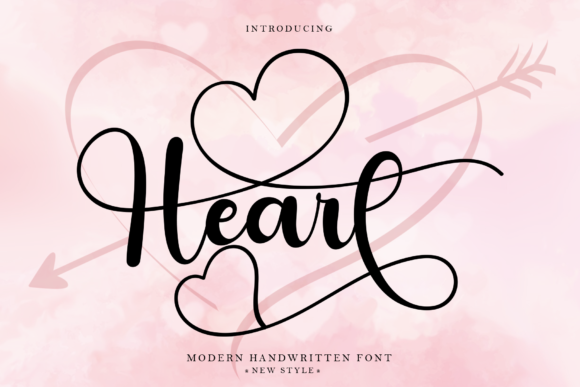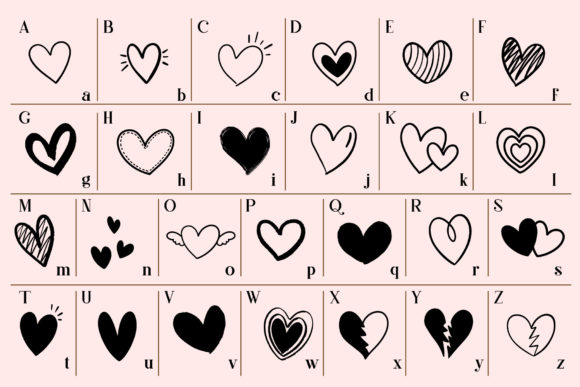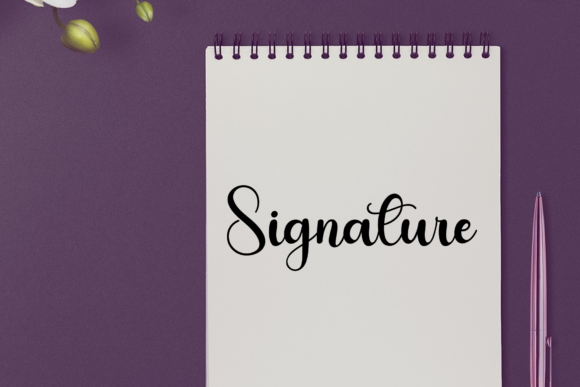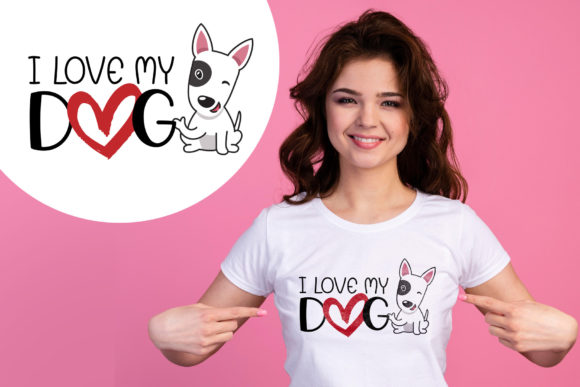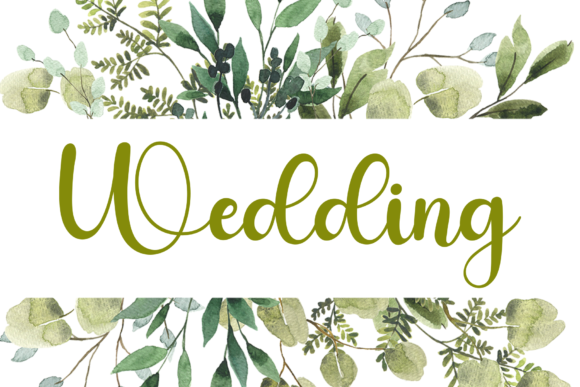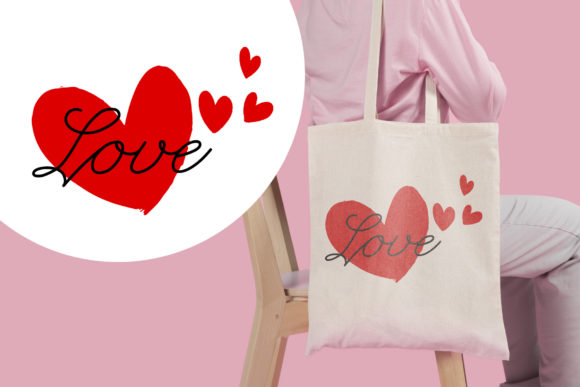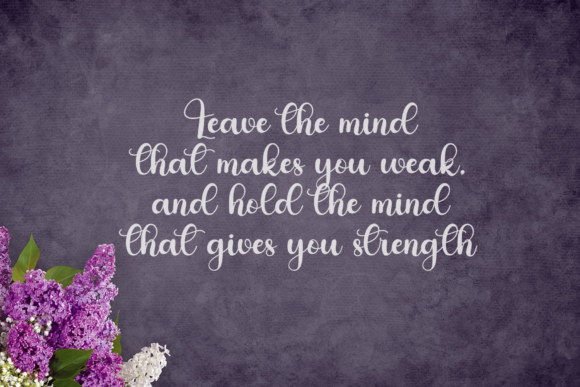
Heart Font
About the Heart Font
Explore the possibilities with Heart Font, a font that offers both beauty and functionality. Heart is a unique, round lettered handwritten font that was carefully crafted to produce the desired results. This font can be used to write titles, invitations, letters, and many other types of products.
Heart Font’s rounded letterforms and handwritten style make it ideal for headlines, branding projects requiring a friendly approachable feel, and short-form text on invitations or packaging. Its charm, however, doesn’t translate well to body text or long paragraphs; the informality becomes overwhelming in extended use, and readability suffers. Avoid using it for UI elements or applications requiring high legibility.
Its inherent warmth pairs beautifully with clean sans-serif fonts like Lato or Open Sans for a balanced contrast, or a geometric sans-serif like Montserrat for a more modern feel. A subtle serif like Merriweather could also complement its organic shapes, adding a touch of sophistication.
Heart Font projects a friendly and approachable personality, best suited for brands focused on warmth, handmade goods, or community-based initiatives. It’s not suitable for projects requiring a sense of authority or corporate seriousness.